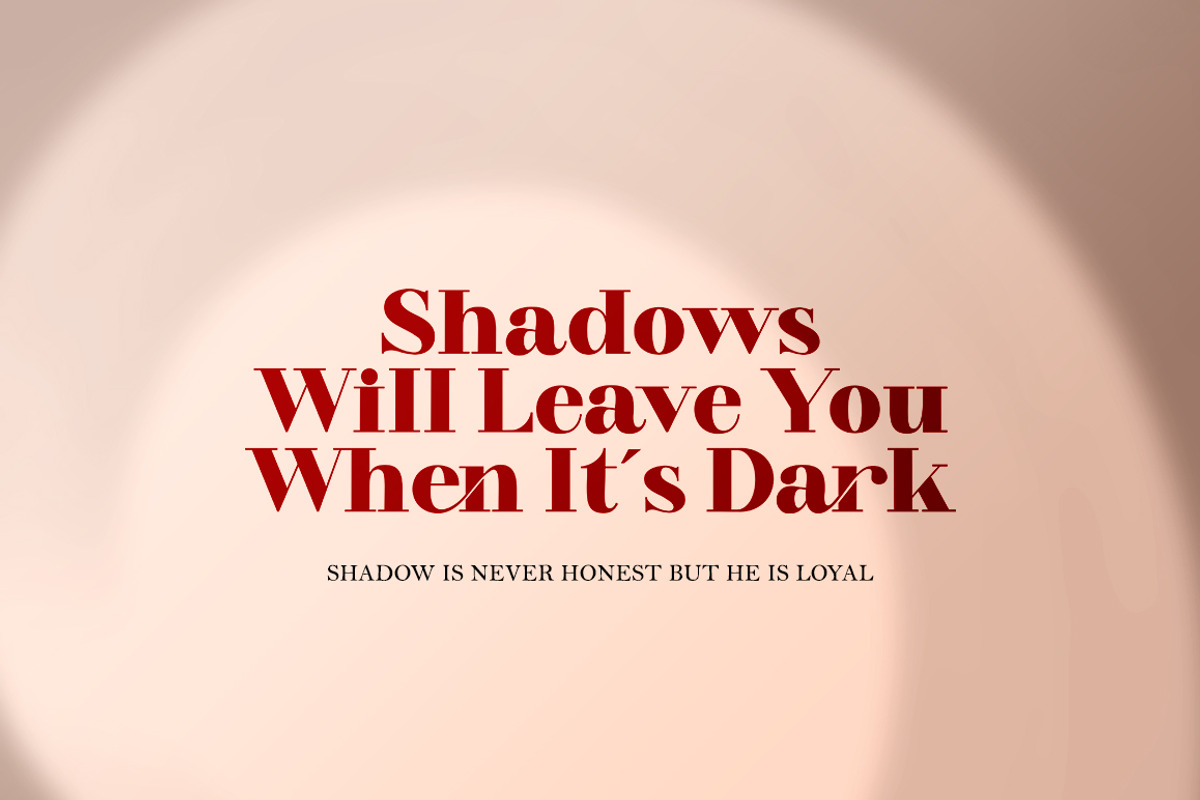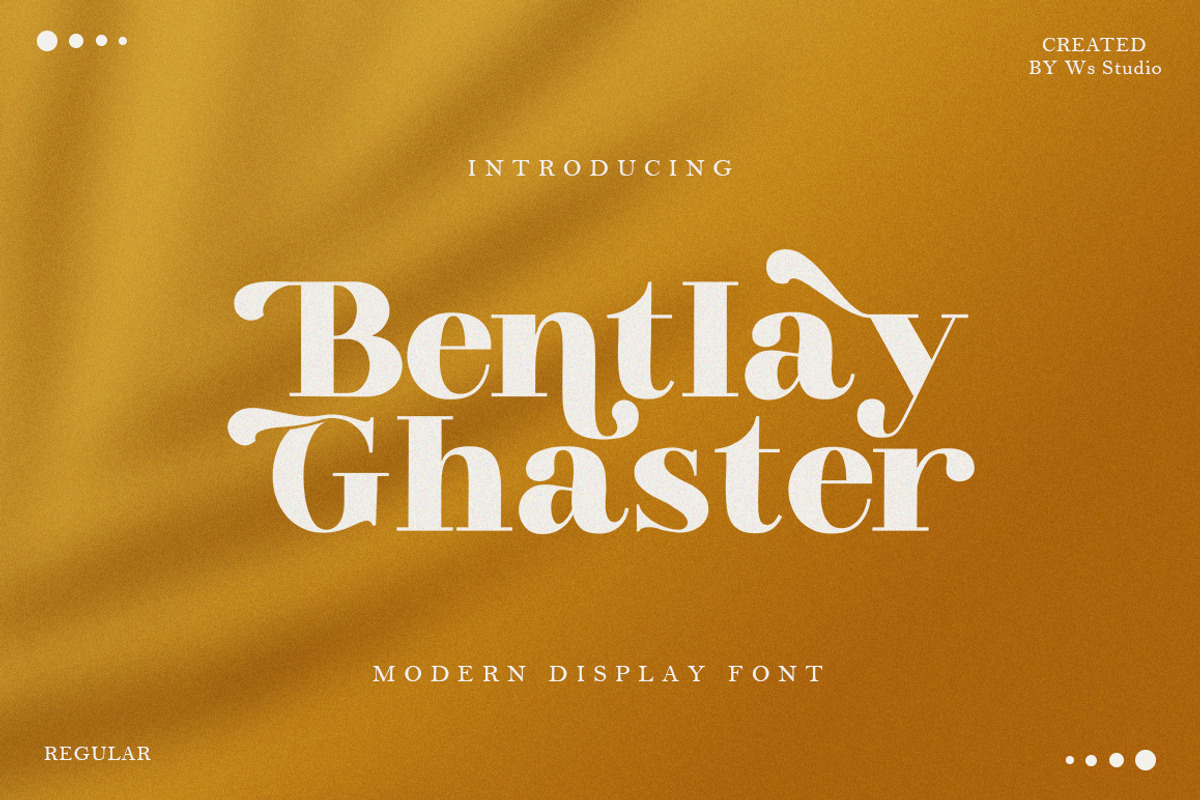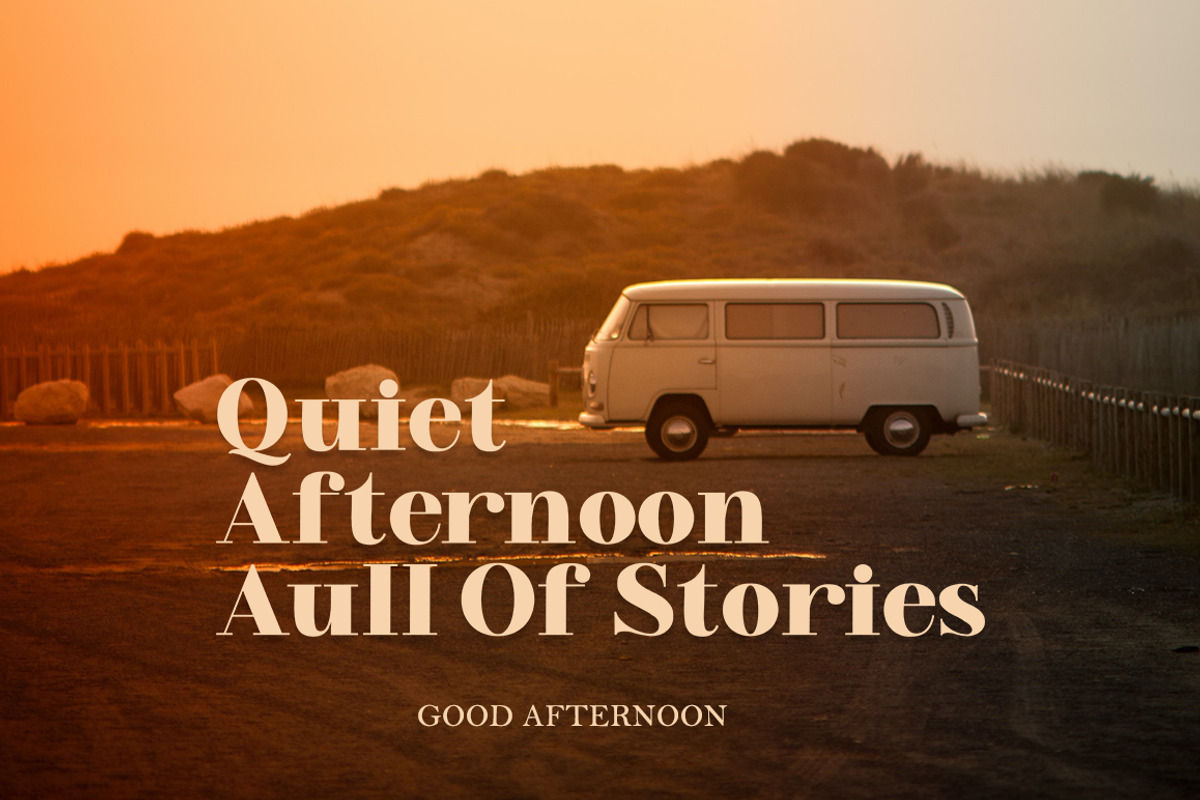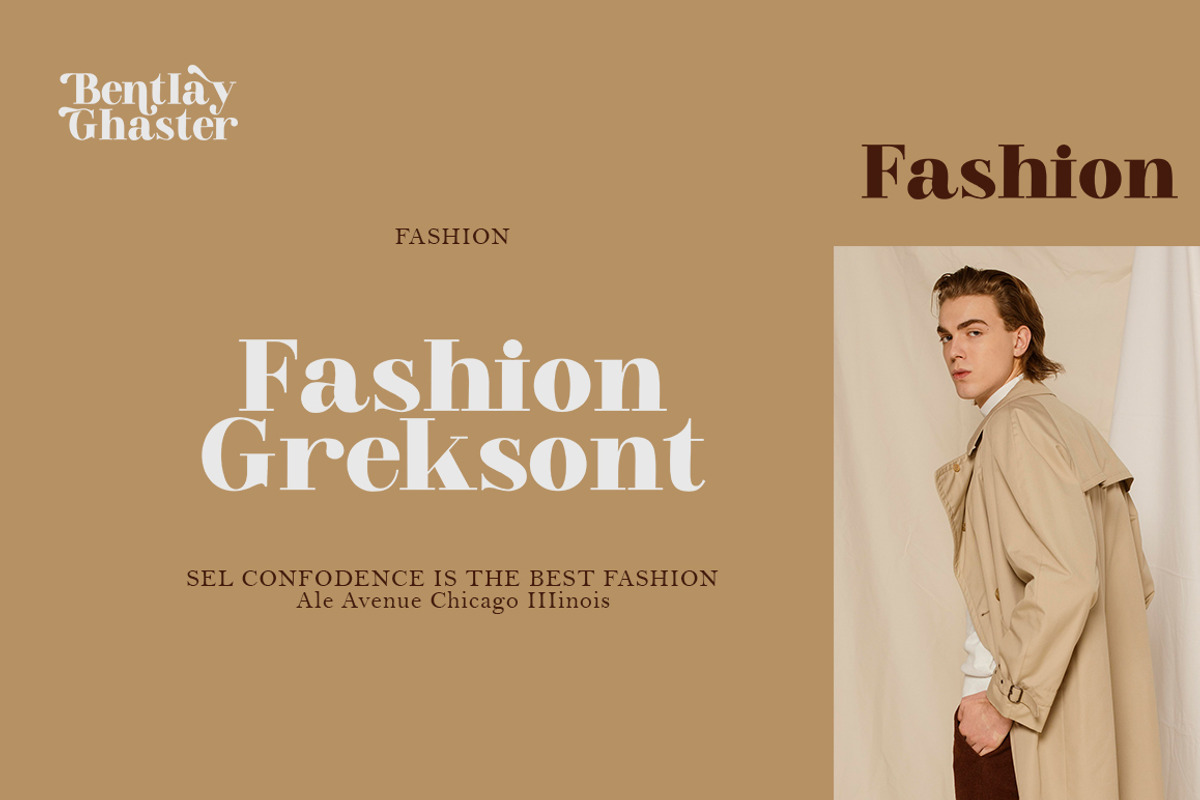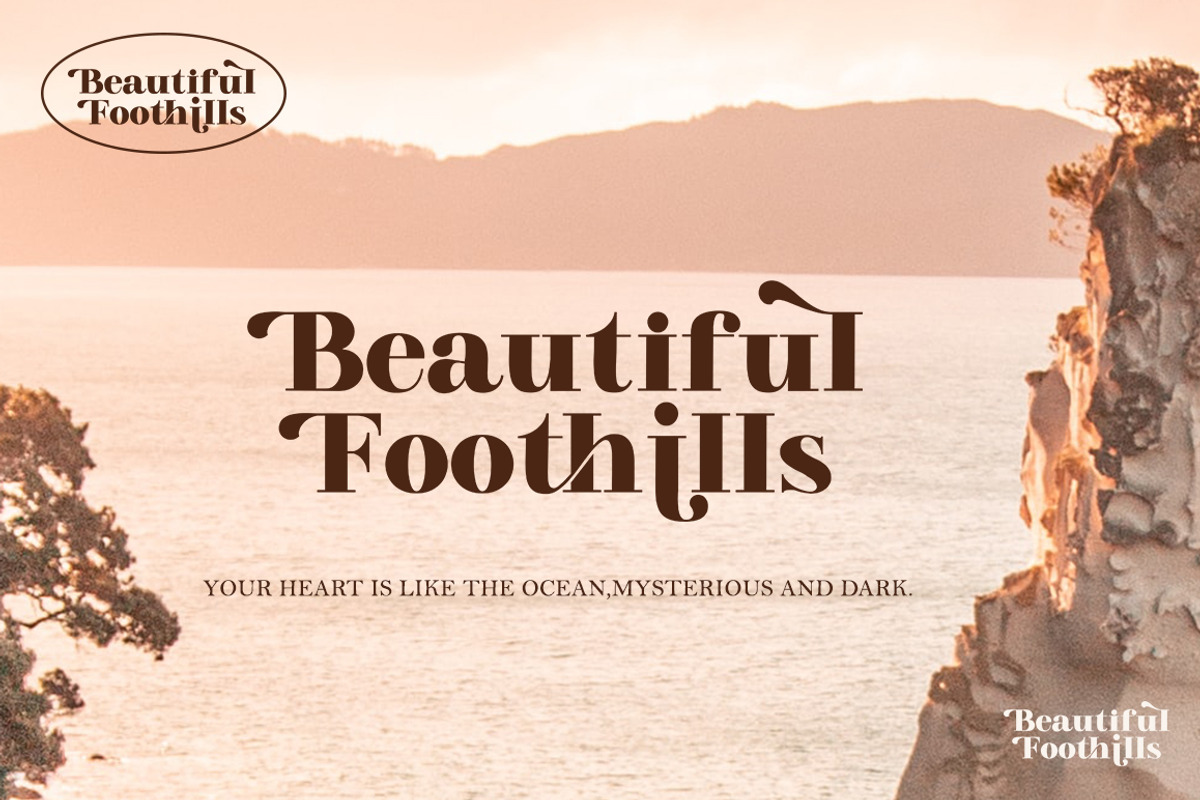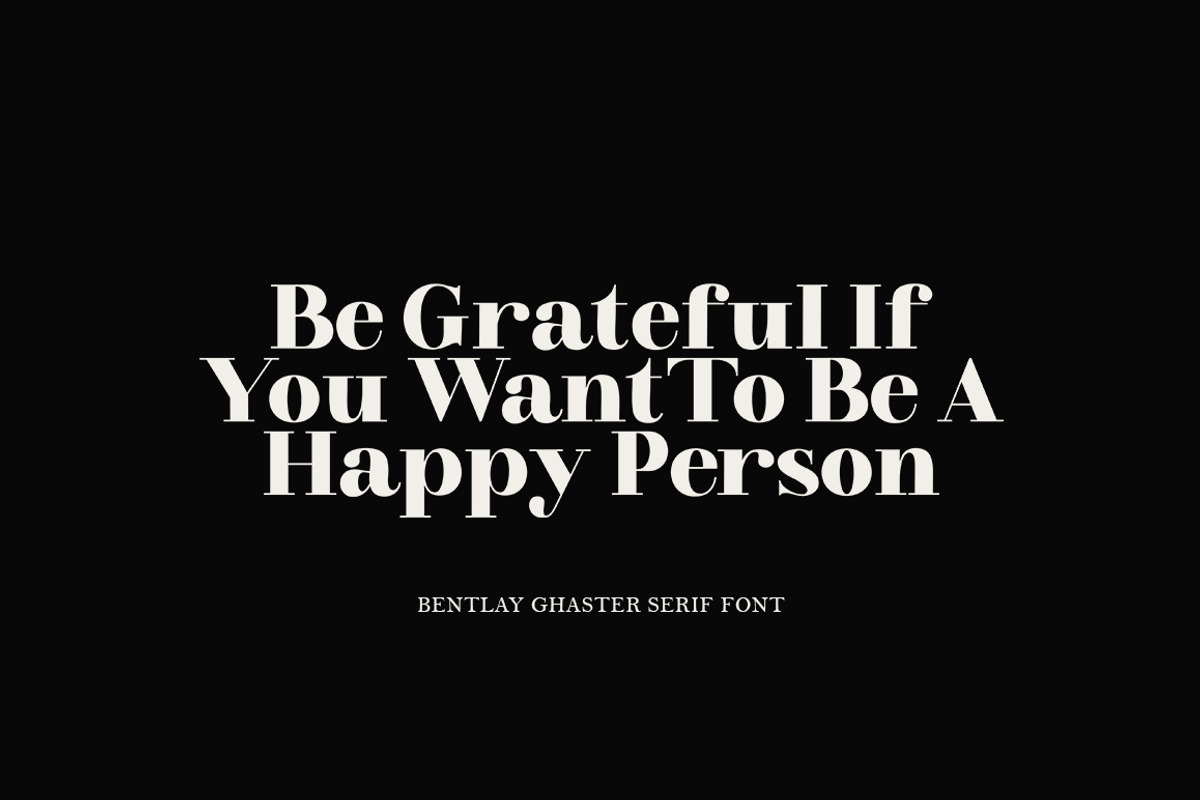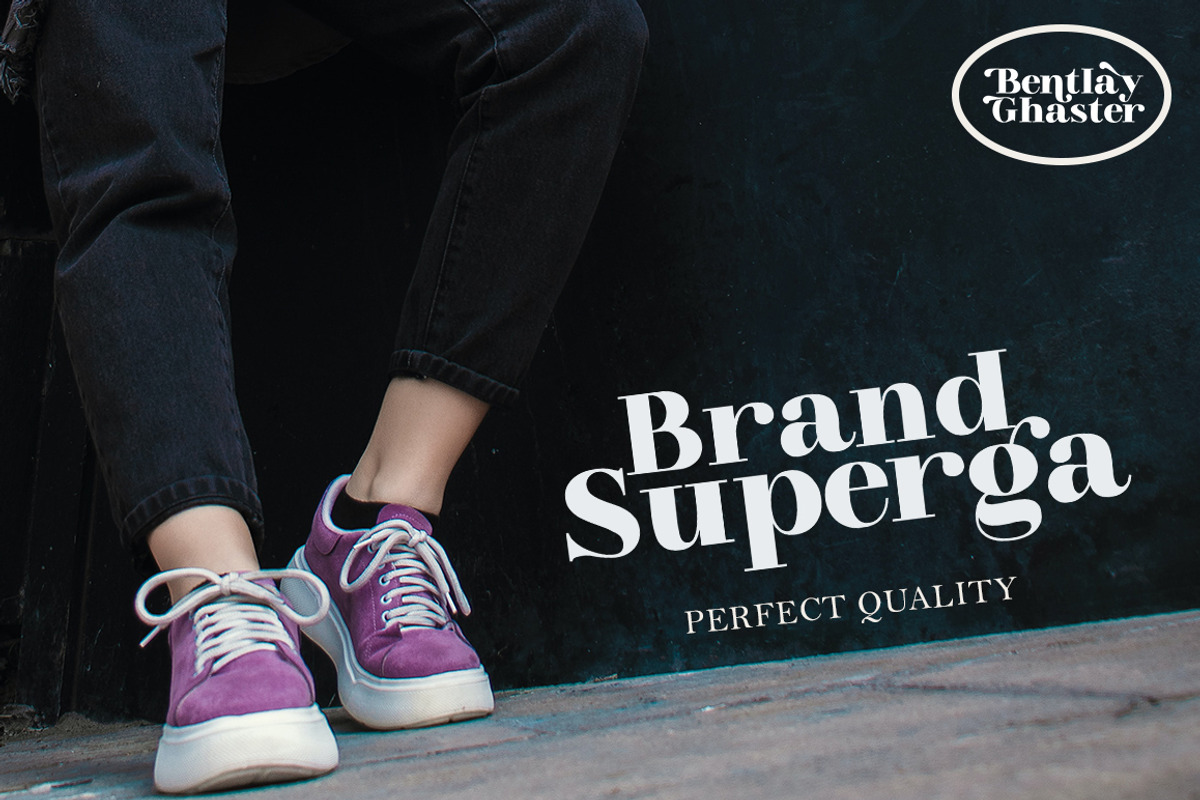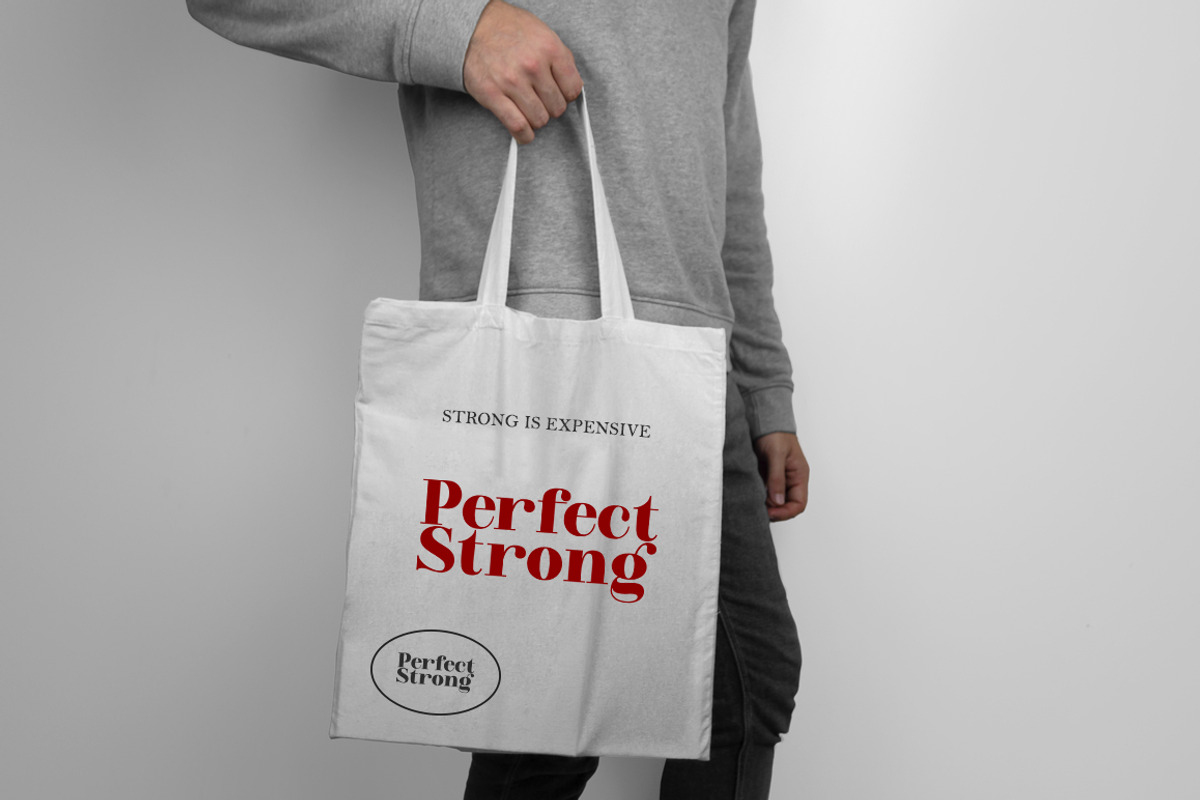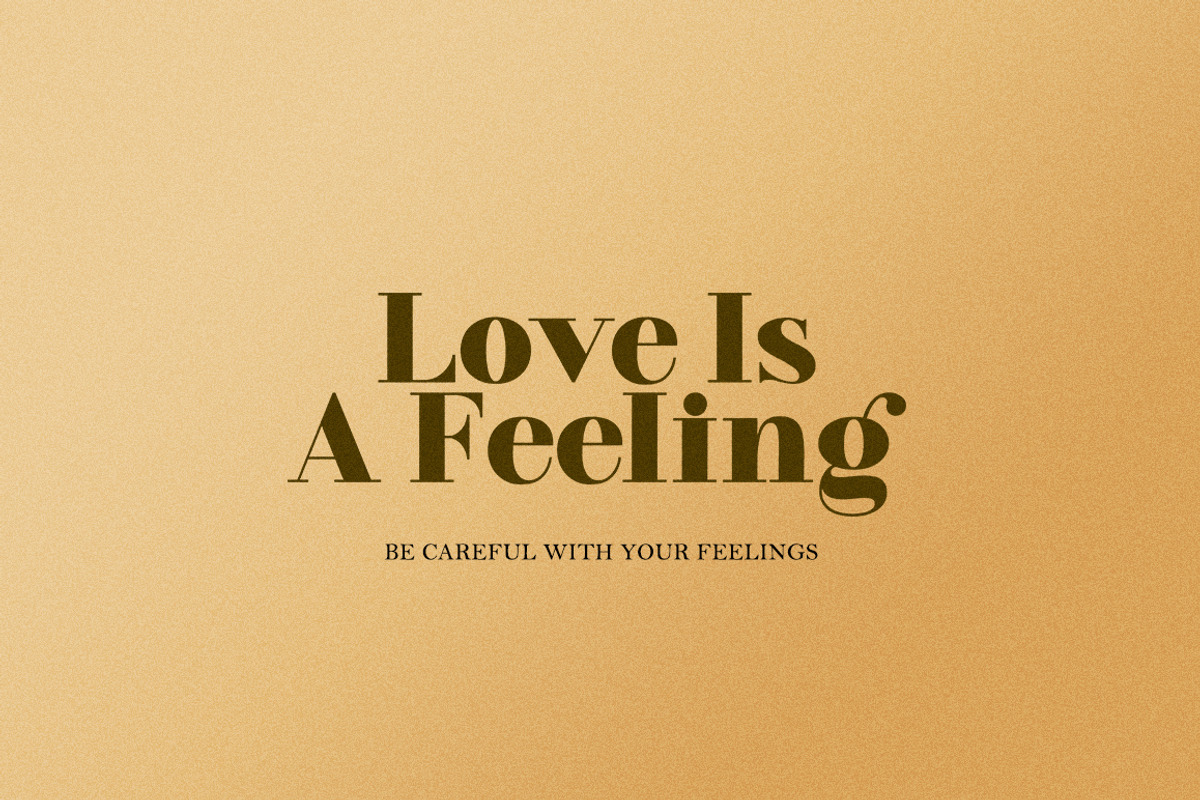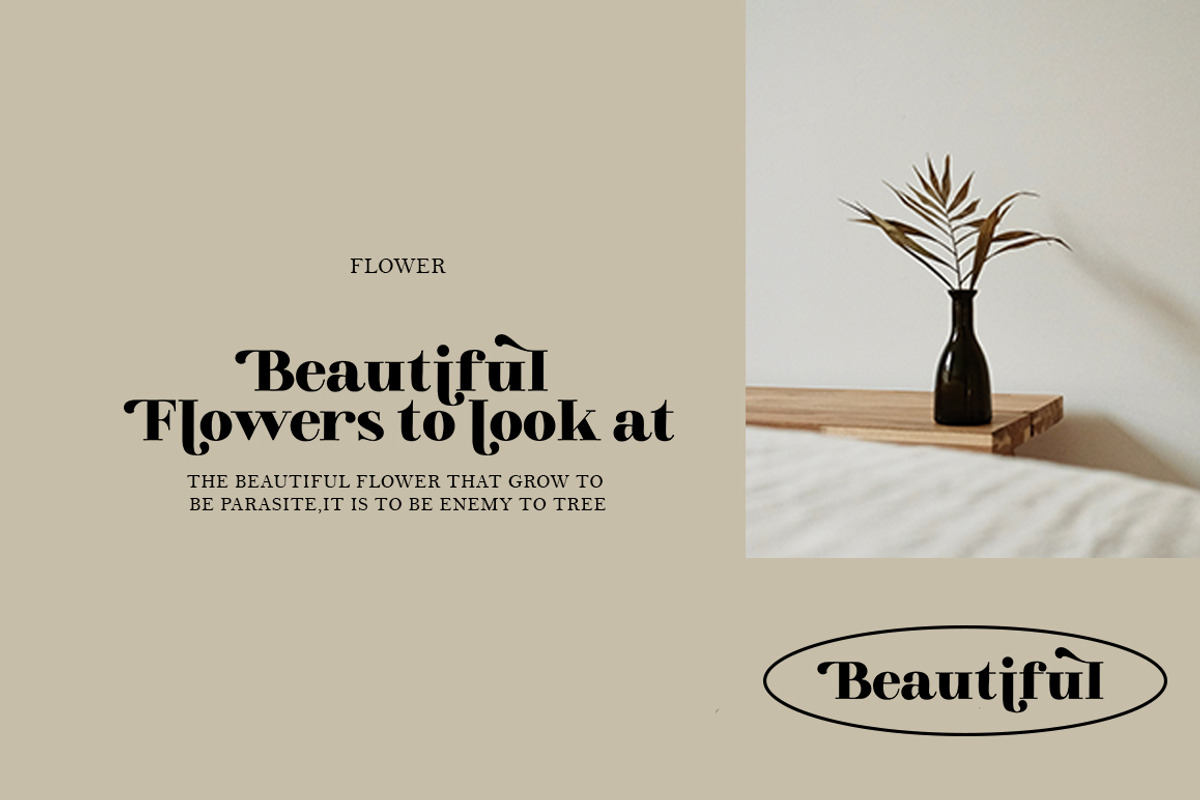
Bentlay Ghaster
Bentlay Ghaster is a slick + modern serif font.
This font is perfect for branding, logos, social media, prints, stickers, shirts, svg files, and more!
The Bentlay Ghester is unique in that it can be used for a variety of design styles. I
perfect for free-spirited boho designs as well as for a classier editorial look!
There are lots of fun style alternatives available to use with this font.